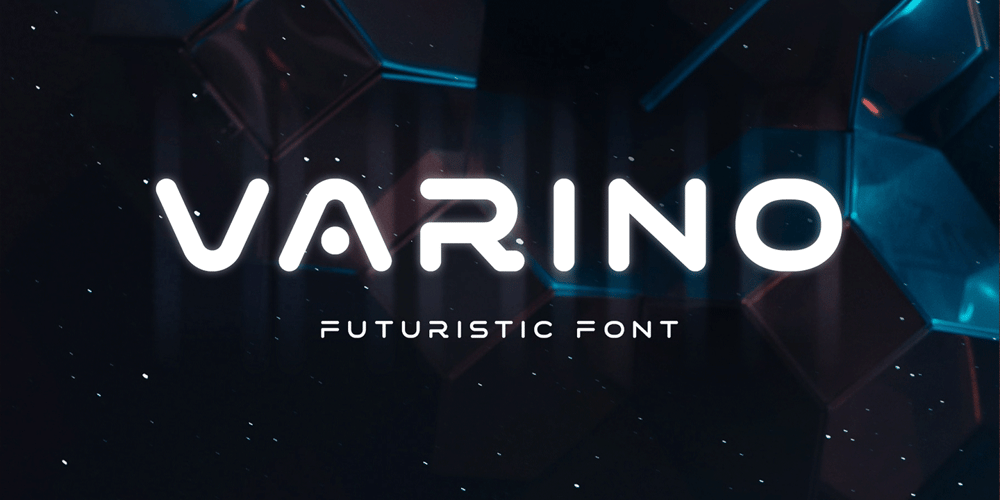
Varino
Varino font
Varino Font Family was designed by Ahmad Ramzi Fahruddin and published by Arterfak Project. Varino contains 5 styles and family package options. Varino is a futuristic font. A font family inspired by the visual of technology that we can find in logos, Sci-Fi movies, games, and the present gadgets. Designed with minimalist style and unique letterforms, Varino is a perfect choice to use for logos, labels, posters, packaging, books, movies, presentations, games, and much more! Varino, complete with some elegant ligatures, will make your design look more futuristic and dynamic.Varino comes in Light, Normal, Bold, Outline and Extrude.